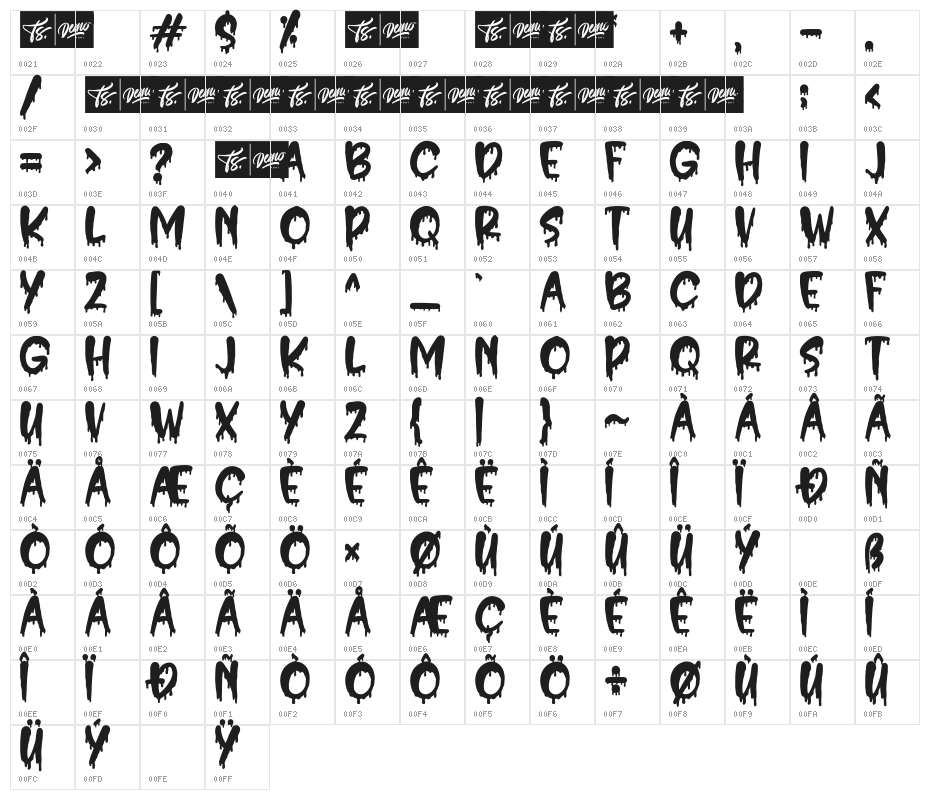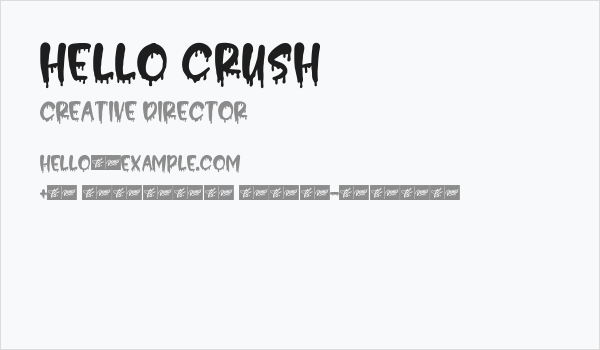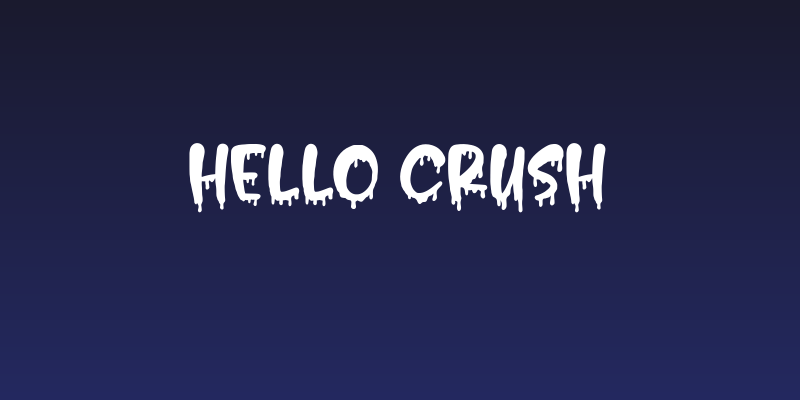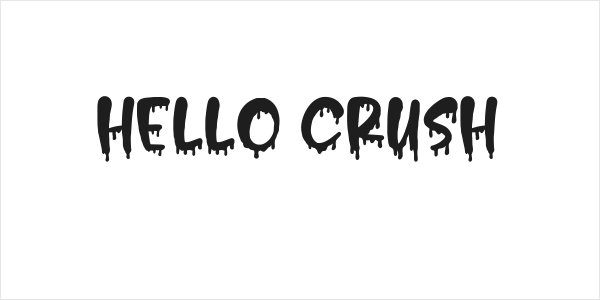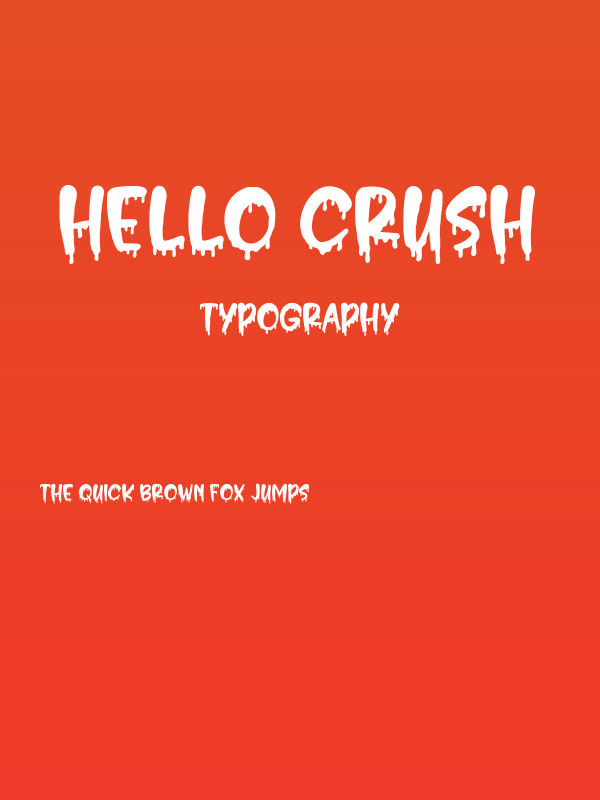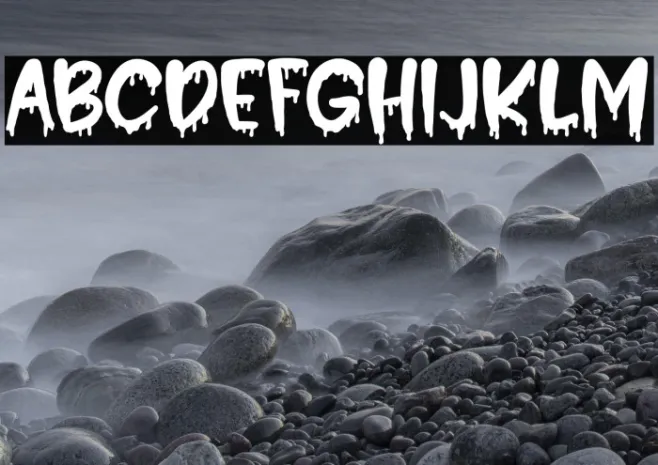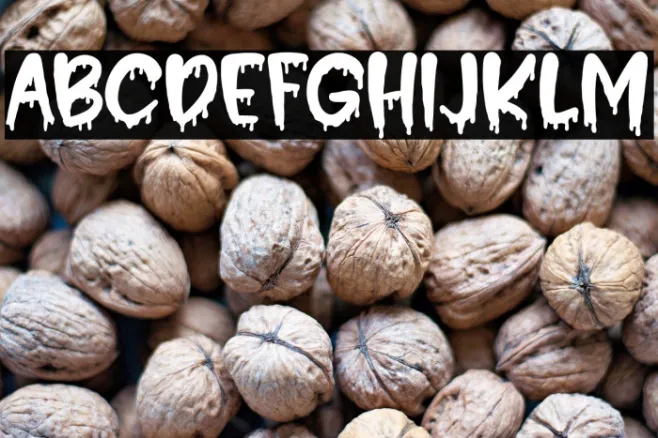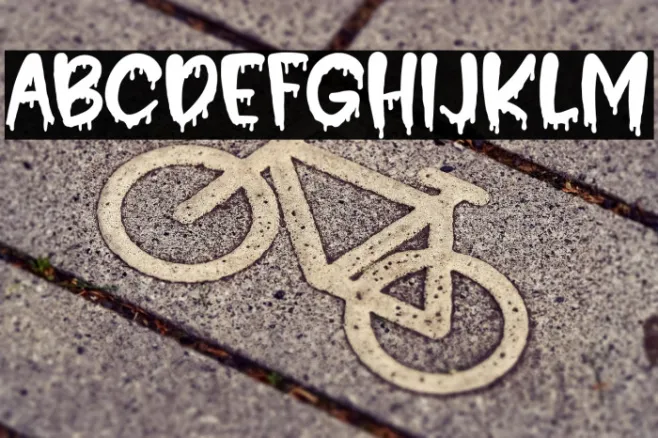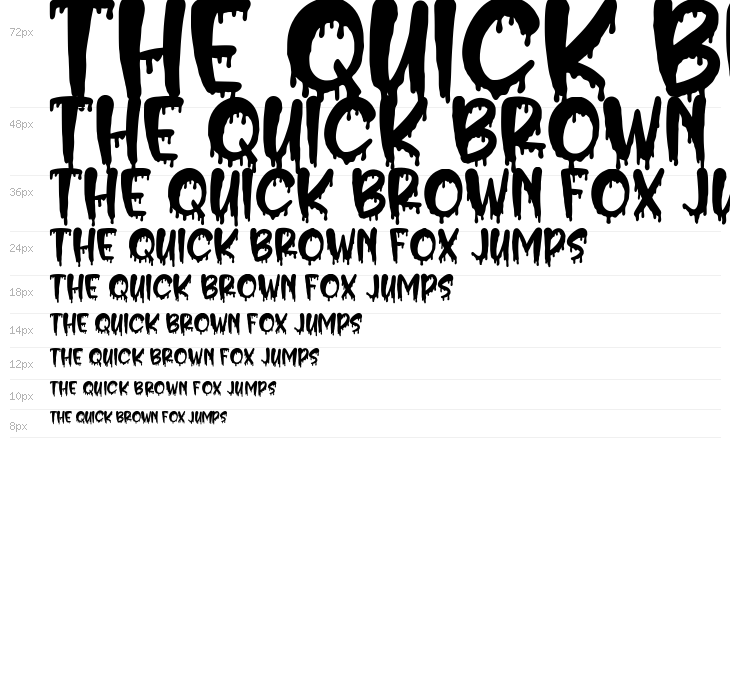
Hello Crush Font
Hello Crush Description
This font features a bold, dripping style that gives the impression of wet paint or melting wax. The uppercase letters are designed with a playful yet edgy aesthetic, making them stand out with their unique, irregular shapes. The font's dramatic appearance is further enhanced by the thick strokes and the dripping effect, which adds a sense of movement and fluidity. It's perfect for creating eye-catching designs that require a bold statement. The special characters maintain the same dripping style, ensuring consistency across all elements.
| Proposed Projects | Ideal for Halloween-themed designs, horror movie posters, edgy branding, or any project that requires a bold, attention-grabbing font. |